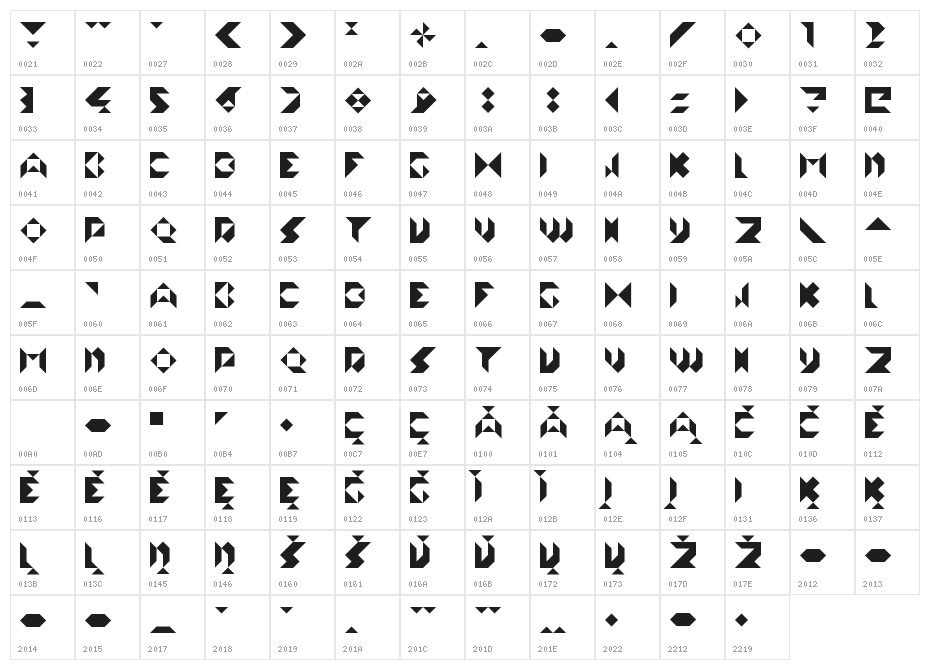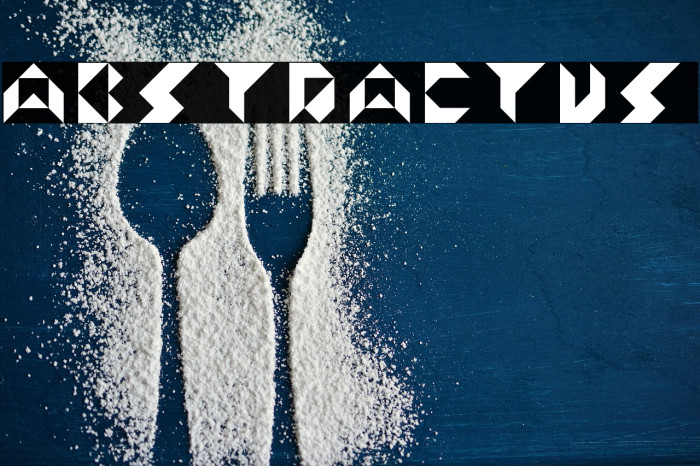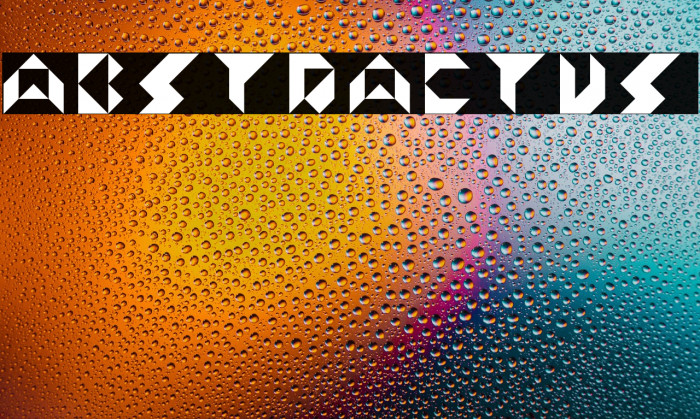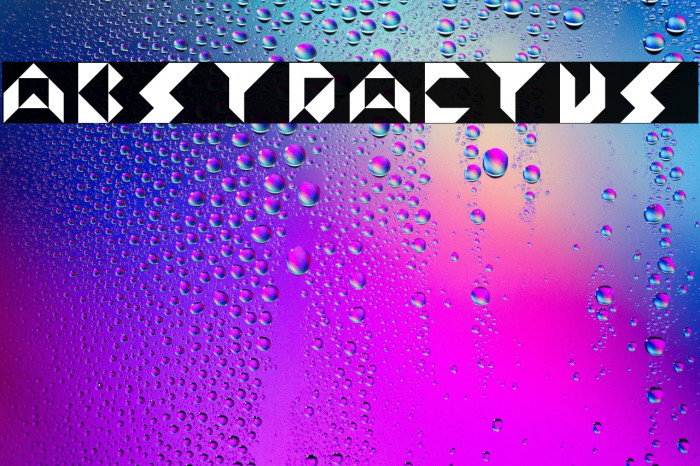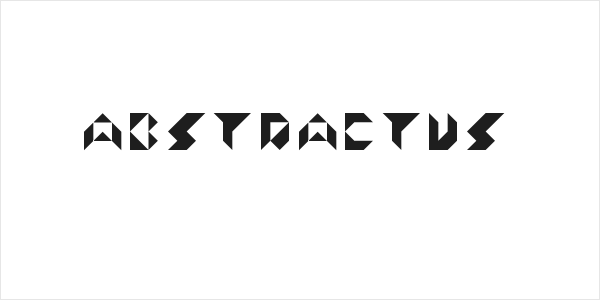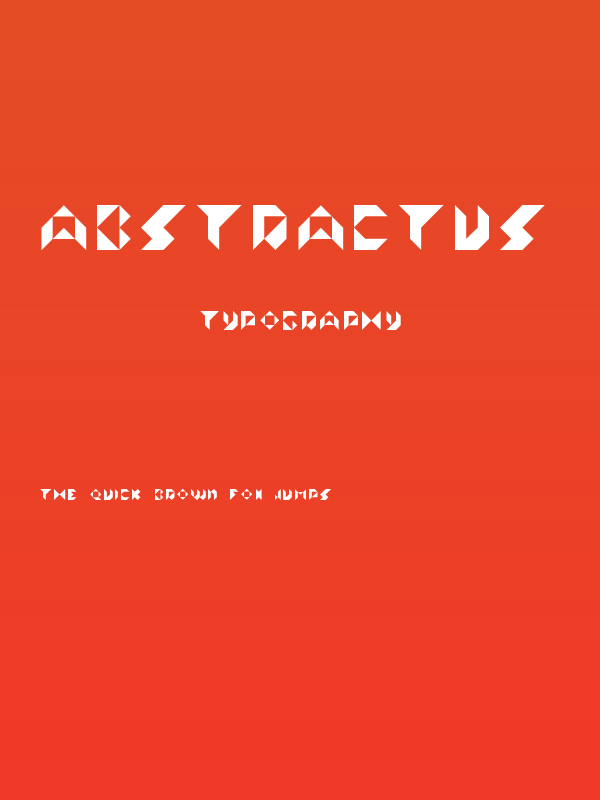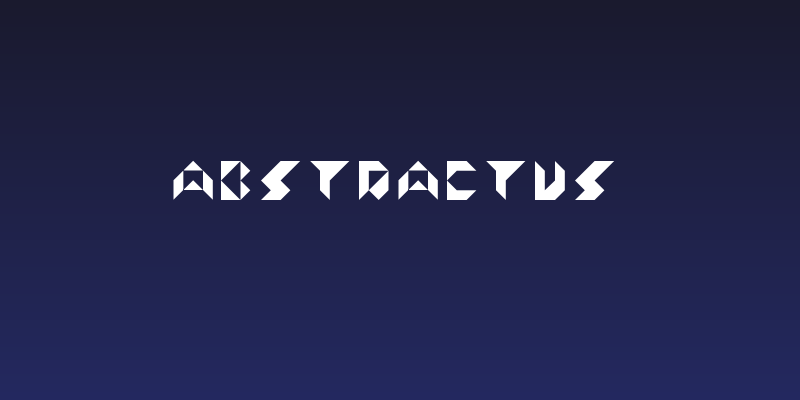
Abstractus Font
Abstractus Description
This font features a bold, geometric style with sharp angles and a futuristic aesthetic. Each character is constructed from a series of triangles and polygons, creating a highly stylized and abstract appearance. The uppercase and lowercase letters maintain a consistent design, emphasizing symmetry and angularity. Numbers and special characters follow the same geometric principles, ensuring uniformity across the entire set. The font's unique design makes it stand out, ideal for projects that require a modern and edgy look.
| Proposed Projects | Ideal for sci-fi themed designs, modern branding, digital artwork, and video game graphics. |